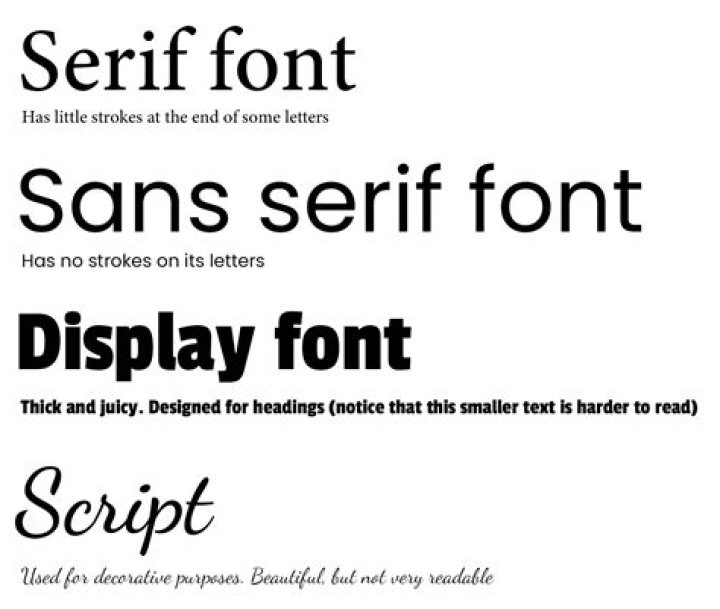
A common 10 or 12 point font (Times New Roman is good). Margins: 1.5 inches on the left, 1 inch each for top, bottom and right.
Which font is best for proposals?
Most people agree that a simple Arial Black or Verdana as a font for headings will give your proposal a clean and professional look. Avoid “loud” fonts such as Goudy Stout.
What font should I use for research proposal?
Use a standard font, such as Times New Roman or Arial, in a legible size (10- to 12-point). Use continuous pagination throughout the paper, including the title page and the references section. Page numbers appear flush right within your header.
Which font is best for thesis?
Times New Roman is the standard choice for academic documents, and the thesis preparation guidelines of some universities stipulate its use. For many years, it was the default body text for Microsoft Word.
What font size is used in thesis?
Fonts must be 10, 11, or 12 points in size. Superscripts and subscripts (e.g., formulas, or footnote or endnote numbers) should be no more than 2 points smaller than the font size used for the body of the text.
What is a good presentation font?
These are the five classic presentation fonts that will look good in any PowerPoint or Keynote presentation if you know how to use them correctly!
- Helvetica.
- Garamond.
- Futura.
- Gill Sans.
- Rockwell.
What is the font size for thesis?
What is standard font size and font style for concept paper?
Concept papers should be one page, single-spaced, using 12-point font and 1-inch margins, inclusive of references.
What font size should I use for my thesis or dissertation?
Fonts should be 10, 11, or 12 points in dimensions. Superscripts and subscripts (e.g. formulas, or footnote or endnote figures) should not be a greater than 2 points smaller sized compared to font size used for your system from the text. Space and indent your thesis or dissertation following the following tips:
How to format a thesis proposal?
Here are some expert tips to format your thesis proposal or final thesis draft. Use the A4 page size for a thesis paper. Times New Roman 12pt and Arial 11pt is the commonly used font style and size. There should be 1.5 line spacing for the text and single spacing for the quotations.
What font is Times New Roman used for a thesis?
Times New Roman is the standard choice for academic documents, and the thesis preparation guidelines of some universities stipulate its use. For many years, it was the default body text for Microsoft Word. With the release of Office 2007, the default became a sans serif typeface called Calibri.
What is the best font to use for university essays?
The default recommended by many universities worldwide is Times New Roman. Times New Roman 12 point is the defacto standard font in MLA guidelines and the U.S. Federal Government. Originally, Times New Roman was designed for a newspaper to fit a lot of text into little space; this means it is really narrow.